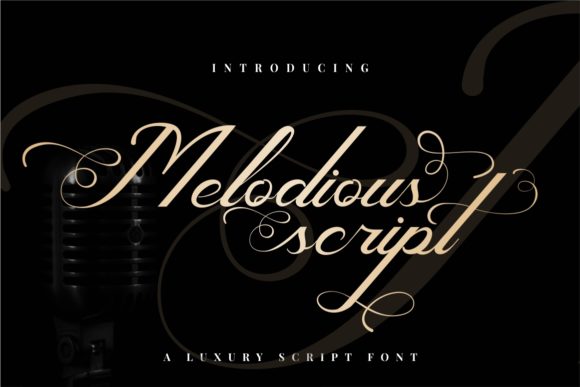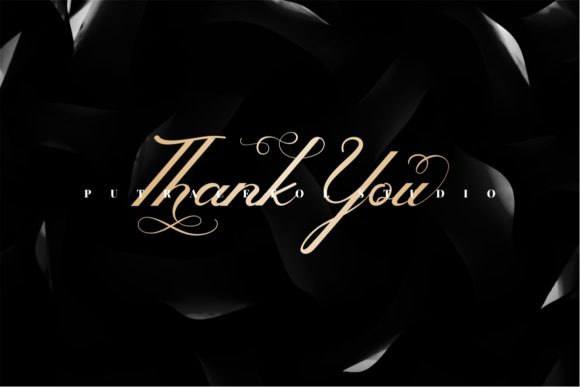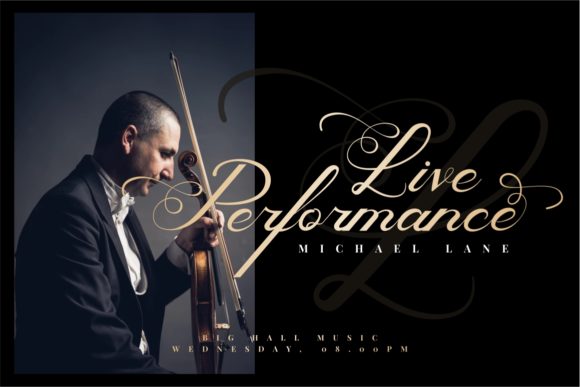
About Melodious Script Font
The Melodious is a classic and decorative script font with a modern touch. It has a royal and glamorous feel which will add an elegant and luxurious touch to your designs.
It can be used for headings, covers, invitations, labels, posters, logos, quotes, product packaging, header, merchandise, social media & greeting cards and much more!